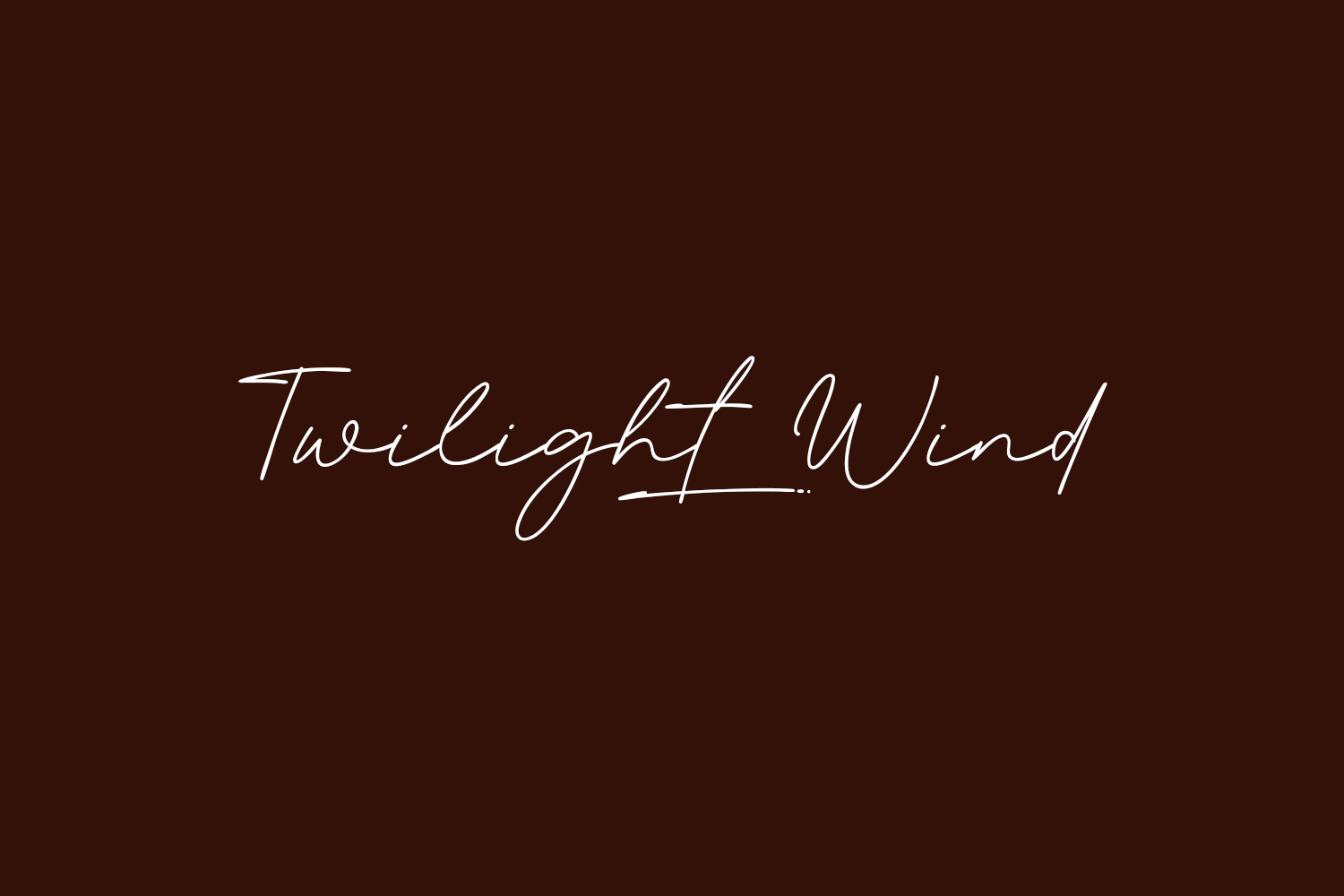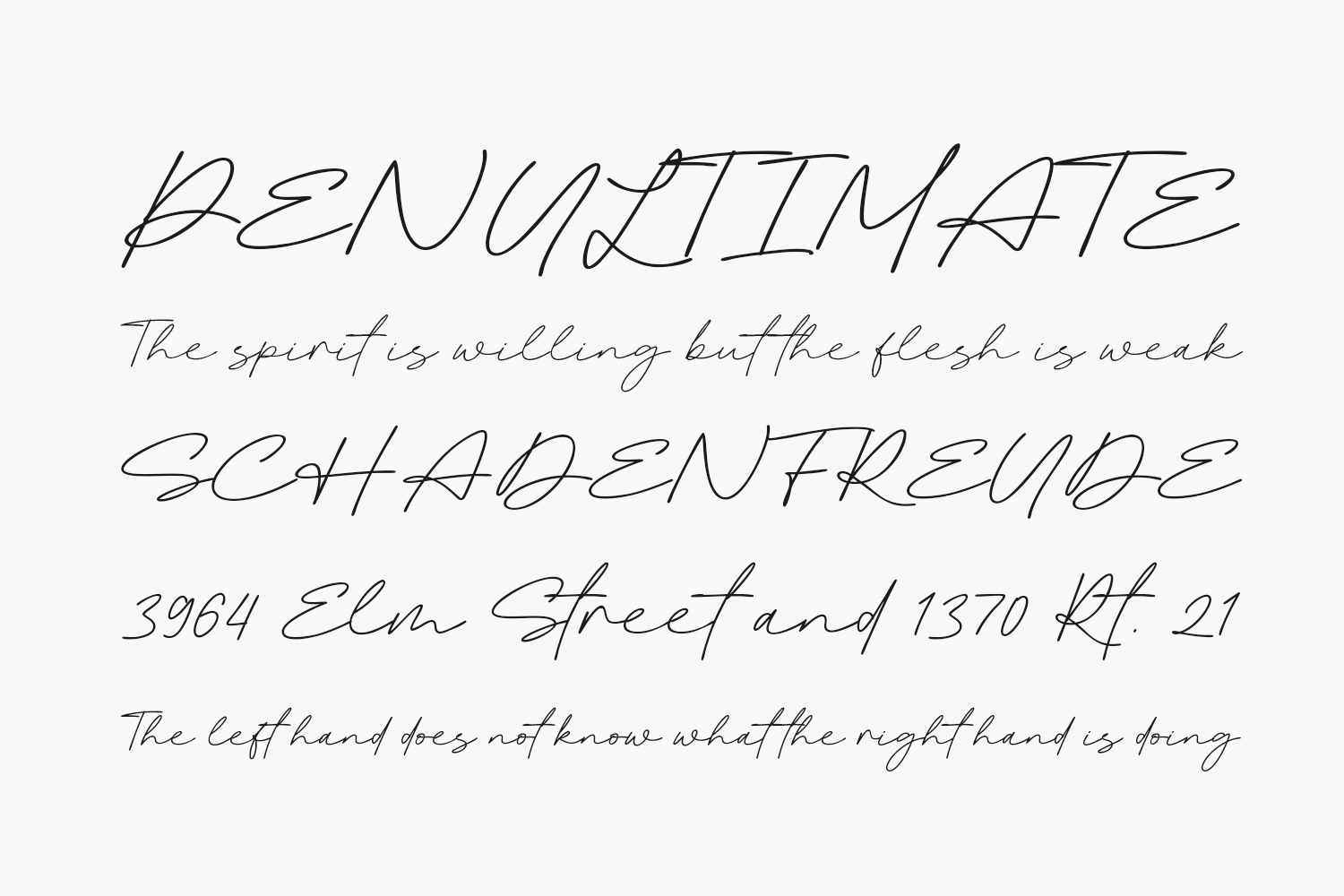
Discover Twilight Wind Free Font, a sophisticated and contemporary script font that exudes cleanliness and elegance. Ideal for a wide range of creative projects, including posters, logos, magazines, book covers, banners, and more. Elevate your designs with this exceptional font and experience how it effortlessly enhances your creative concepts, making them truly shine. Twilight Wind Free Font is free for personal use only. Please purchase the full version for commercial use.